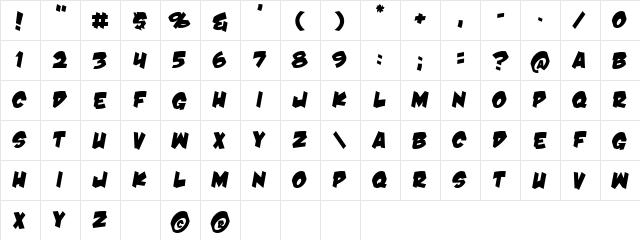
Damn Noisy Kids Regular
Design Context for Damn Noisy Kids Typeface
Damn Noisy Kids has an approachable, lighthearted character — its loose, expressive forms are well-suited to children's content, casual branding, and fun-first design.
Great for children's books, toy packaging, family event branding, and casual consumer-facing design.
Font Pairing: Pairs well with a rounded or humanist sans for body copy, maintaining the friendly tone without relying on Damn Noisy Kids to carry extended reading.
Pro Tip: Avoid using Damn Noisy Kids for long passages of text — it works best for headlines, labels, and short calls to action.